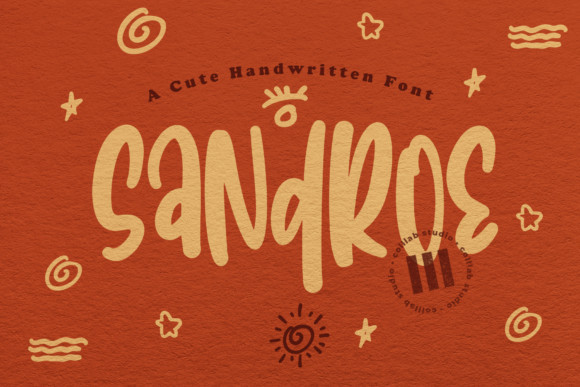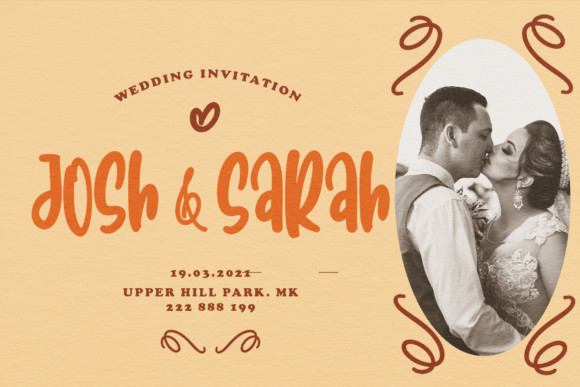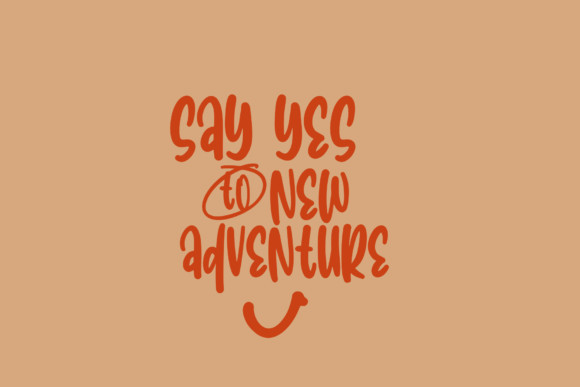
Sandroe Font
Sandroe is a cute and quirky display font. It will add an incredibly joyful touch to your designs. Add this beautiful display font to each of your creative ideas and notice how it makes them stand out!